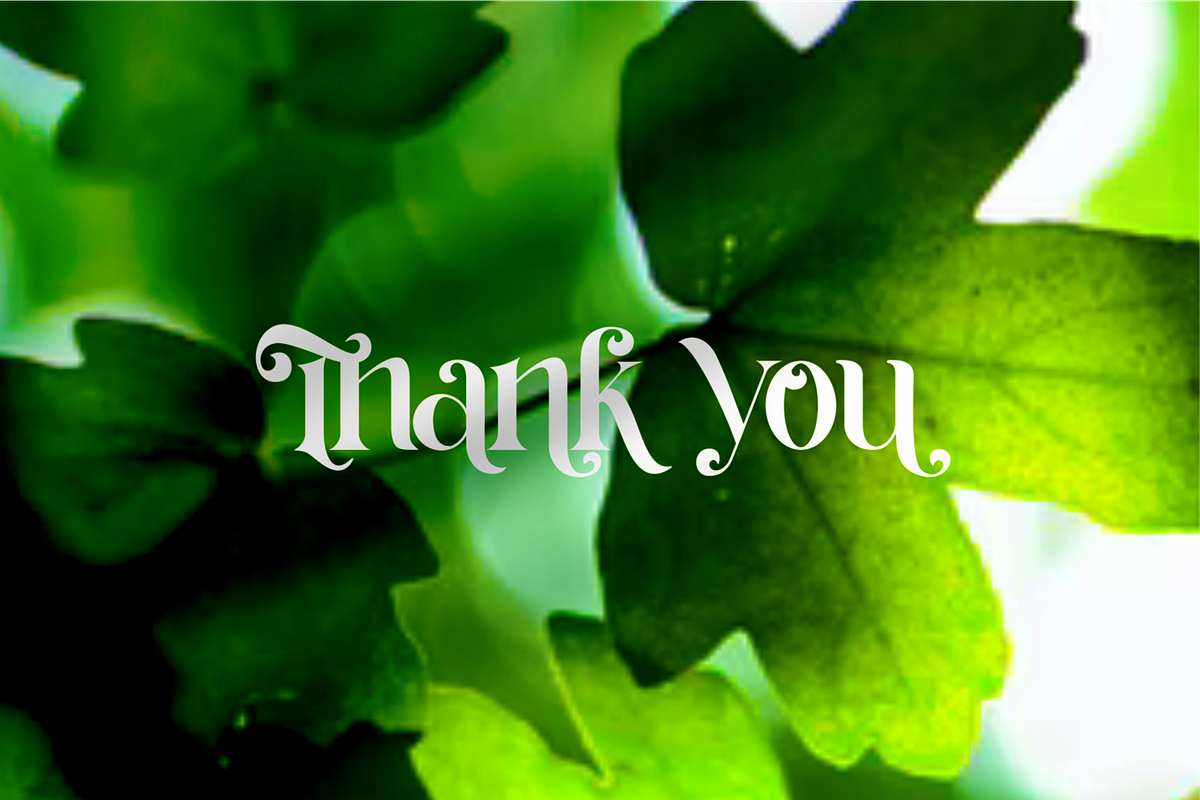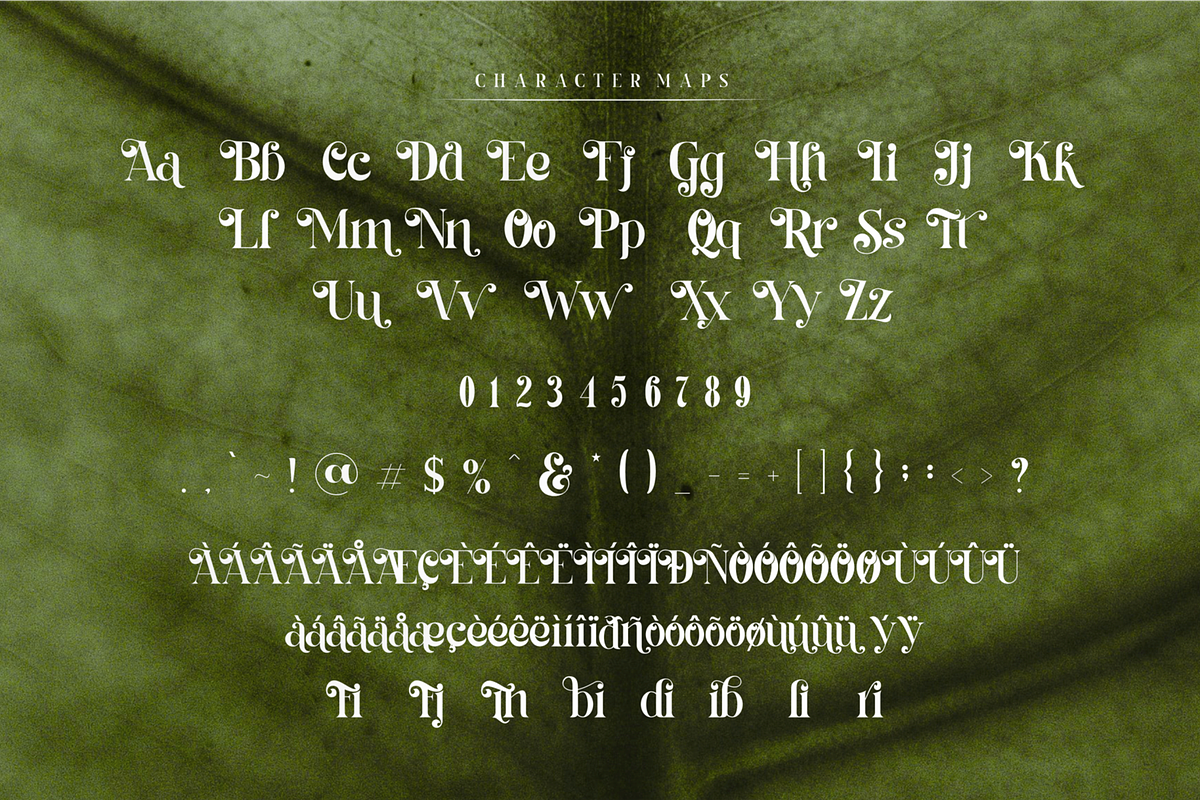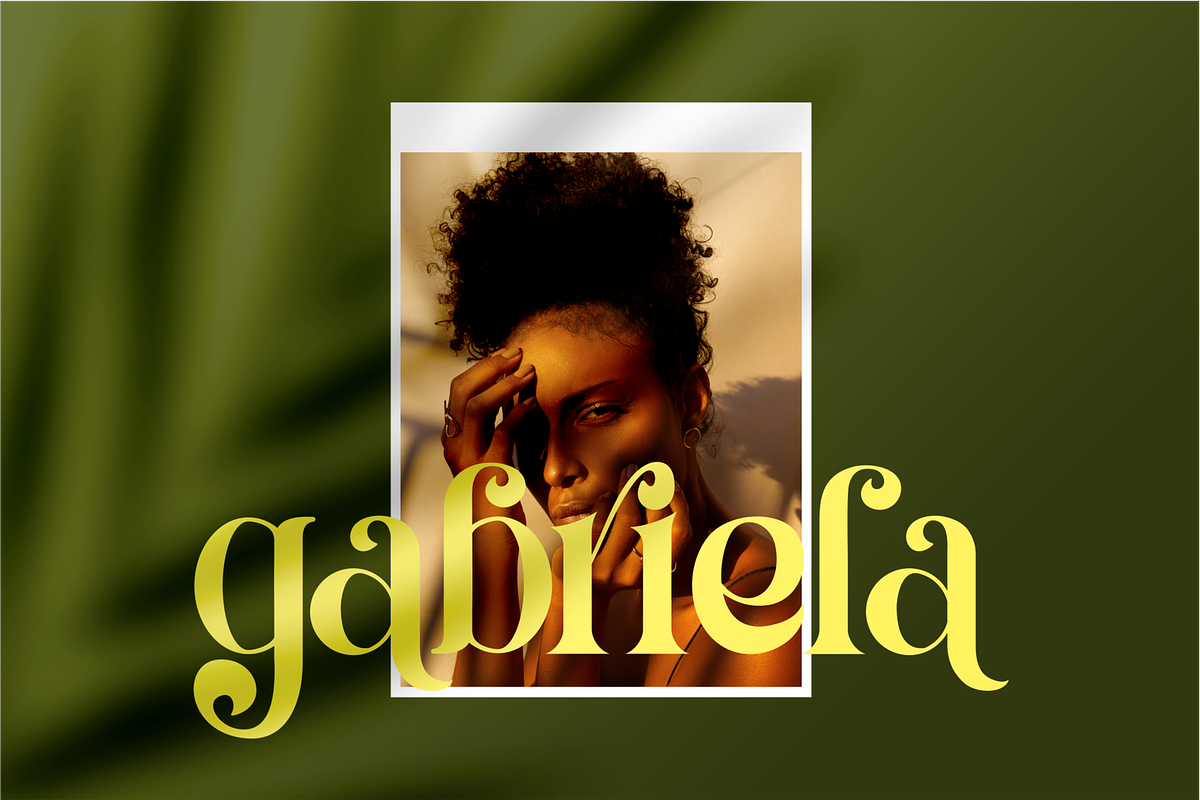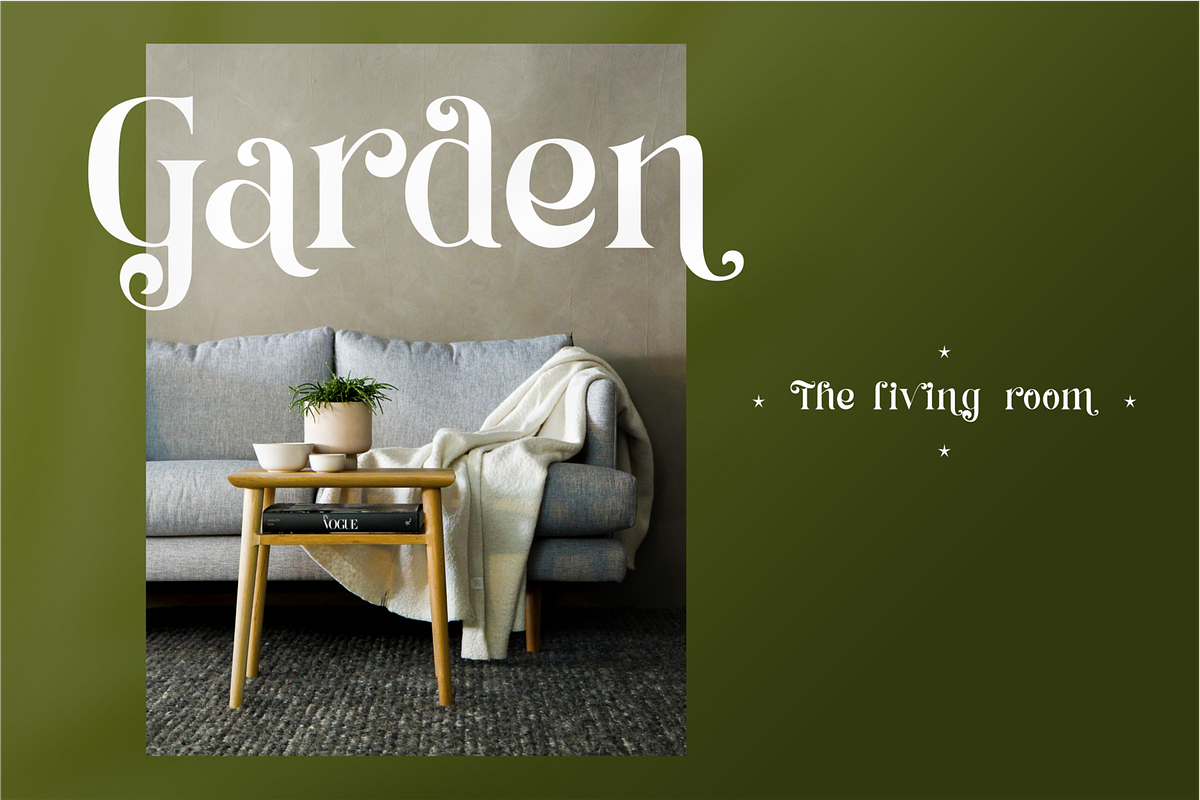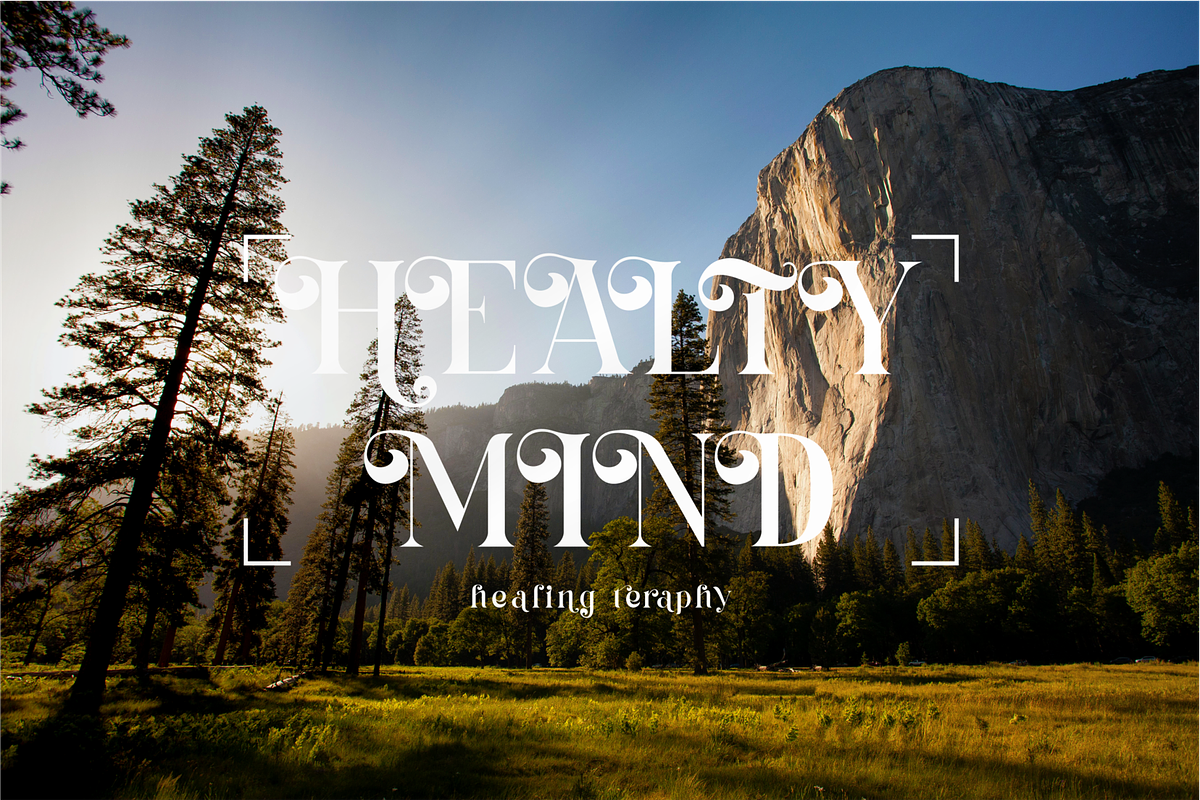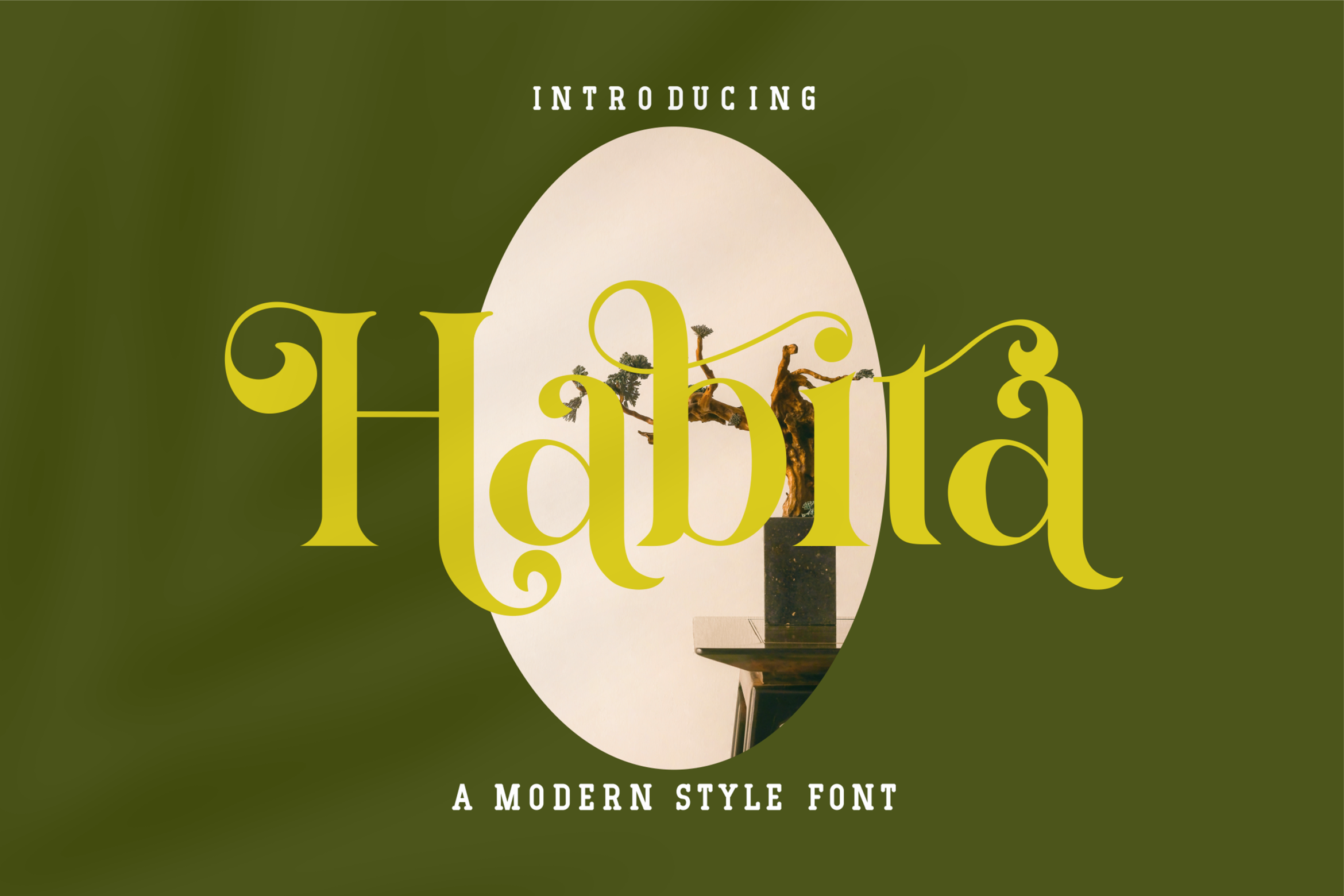
Habita - Serif Font
introducing our new "Habita" Modern Serif with Elegant style this is perfect for branding, logos, invitation, masterheads and more.
features :
Uppercase & lowercase Punctuation & numeric Multilingual